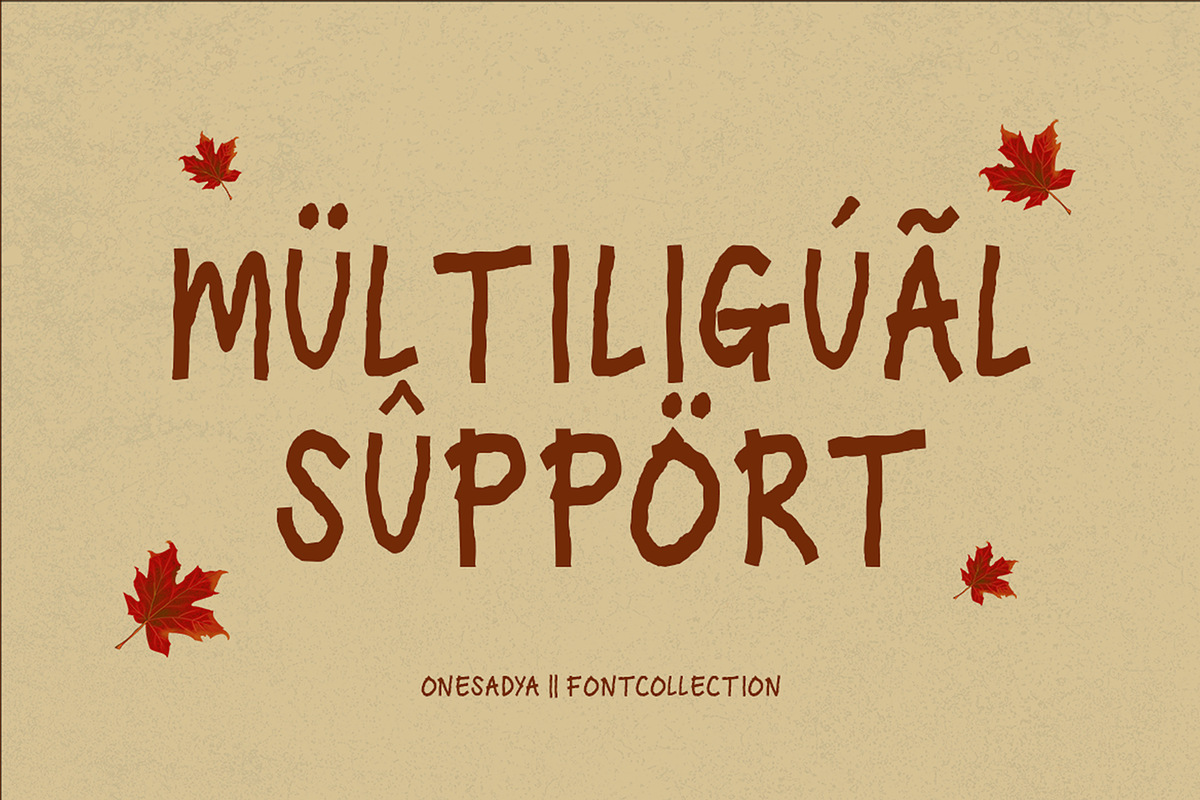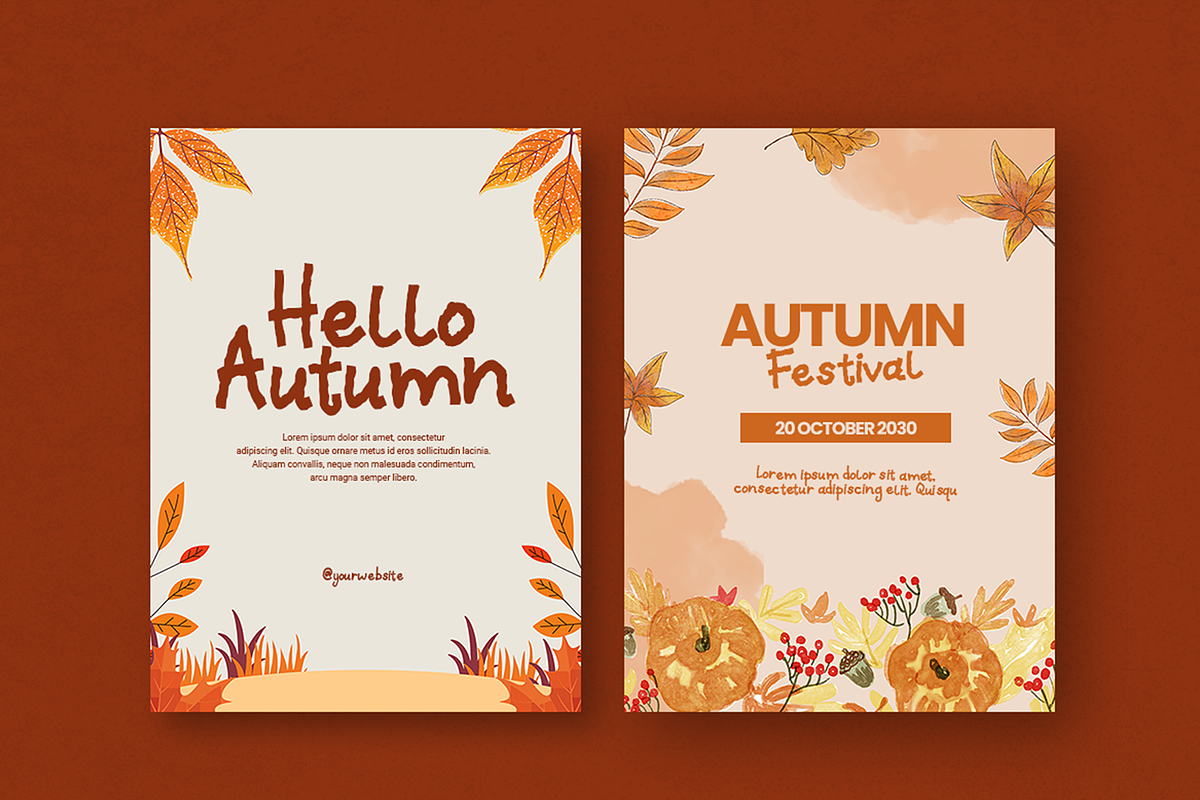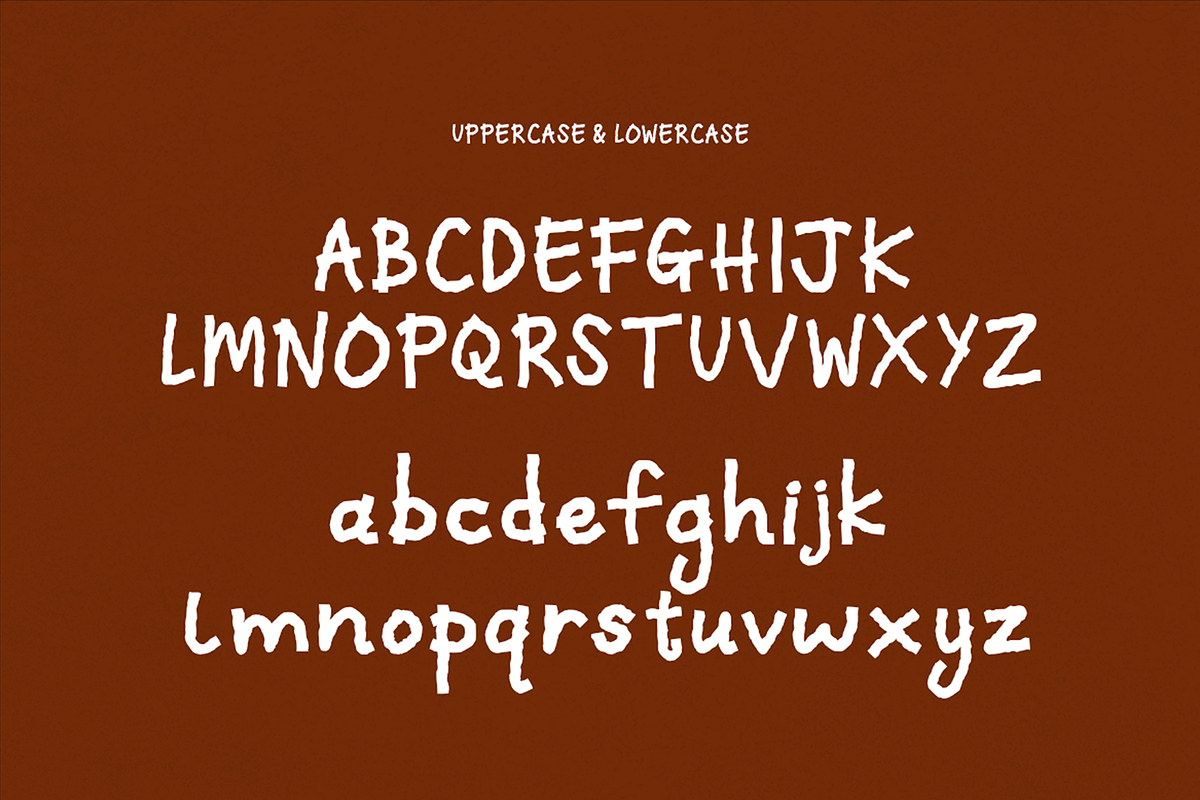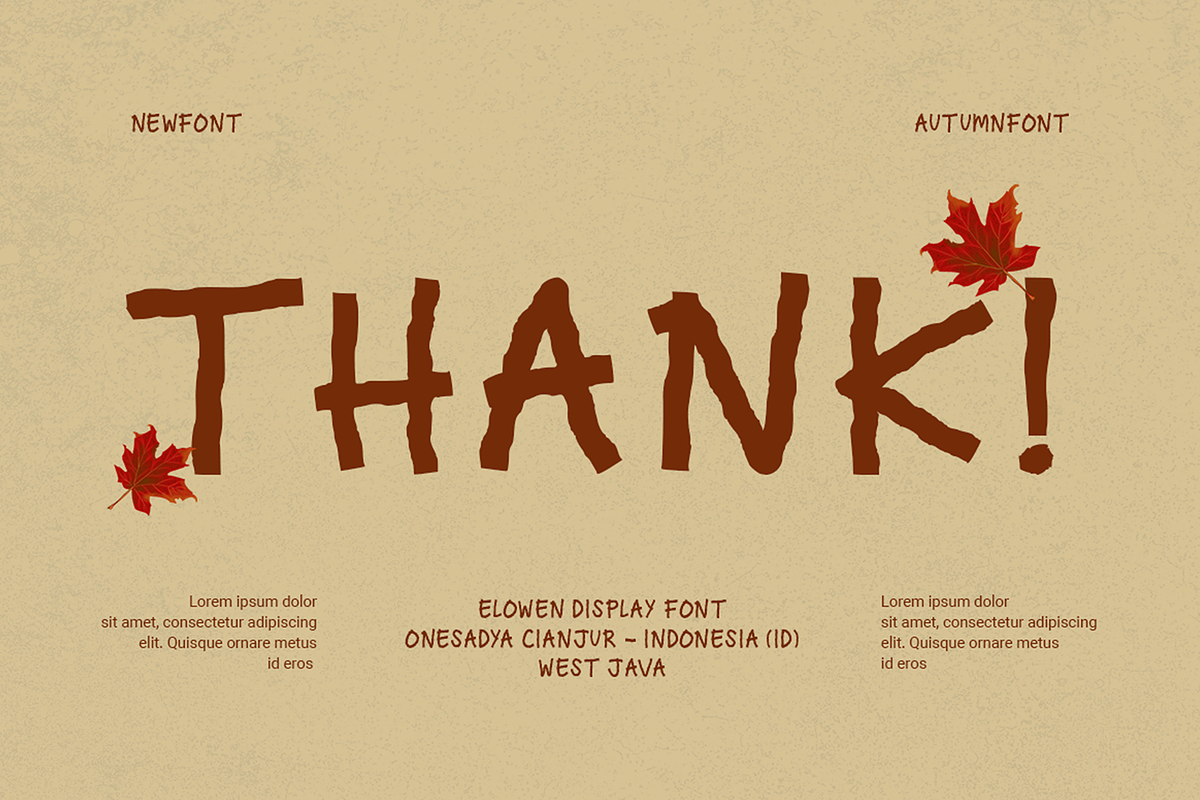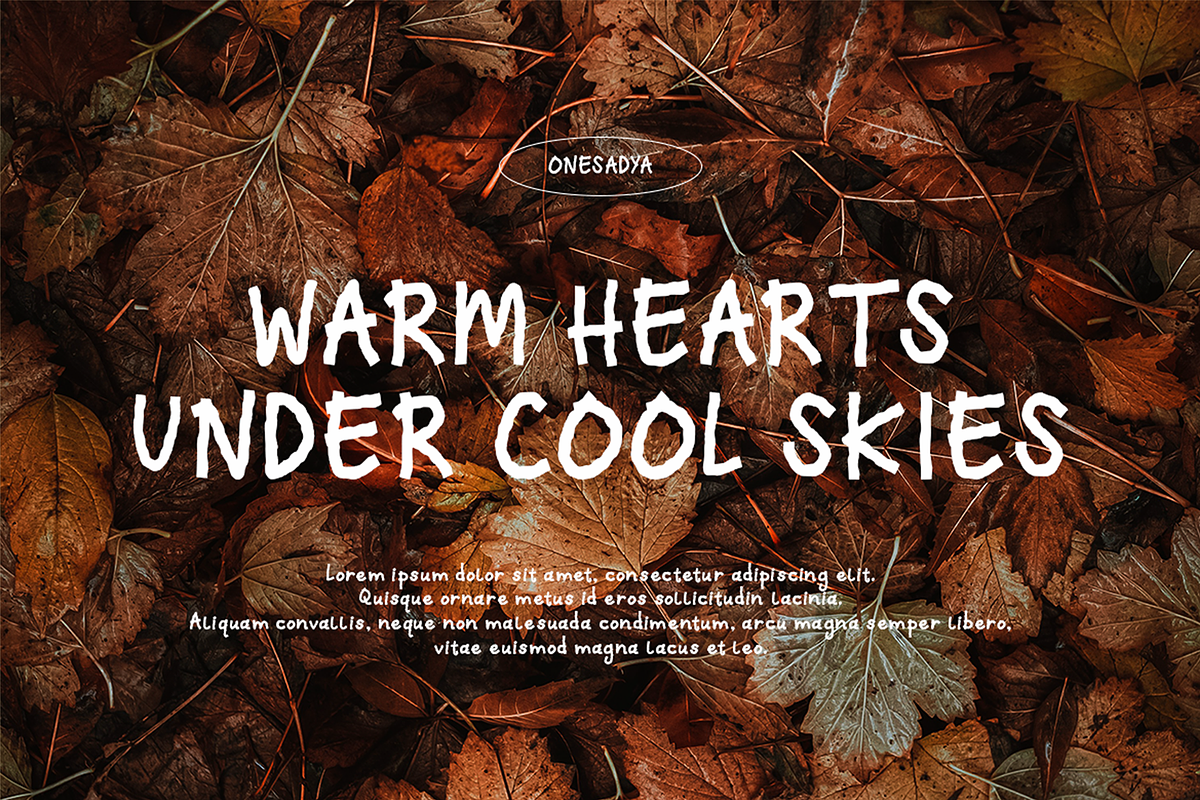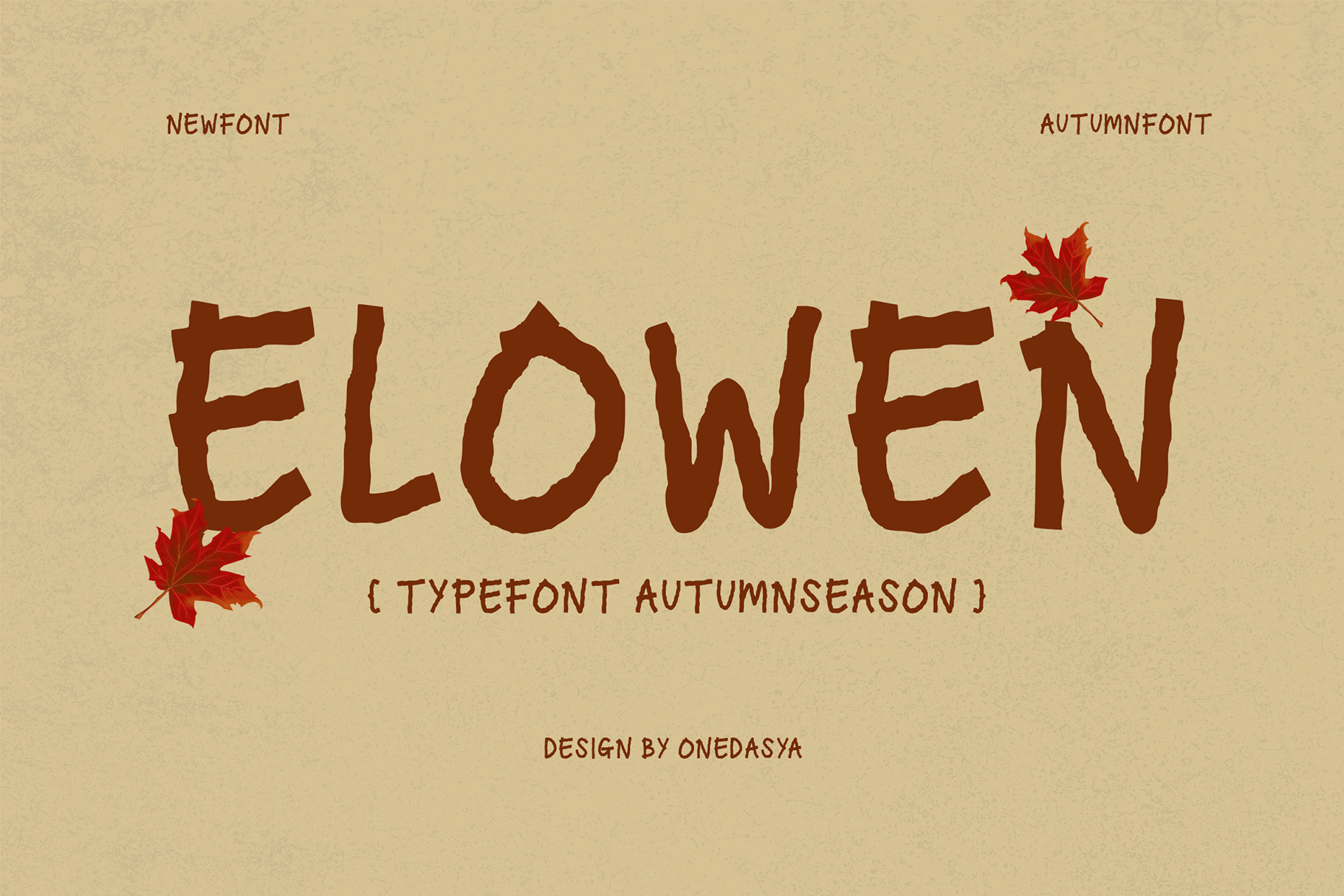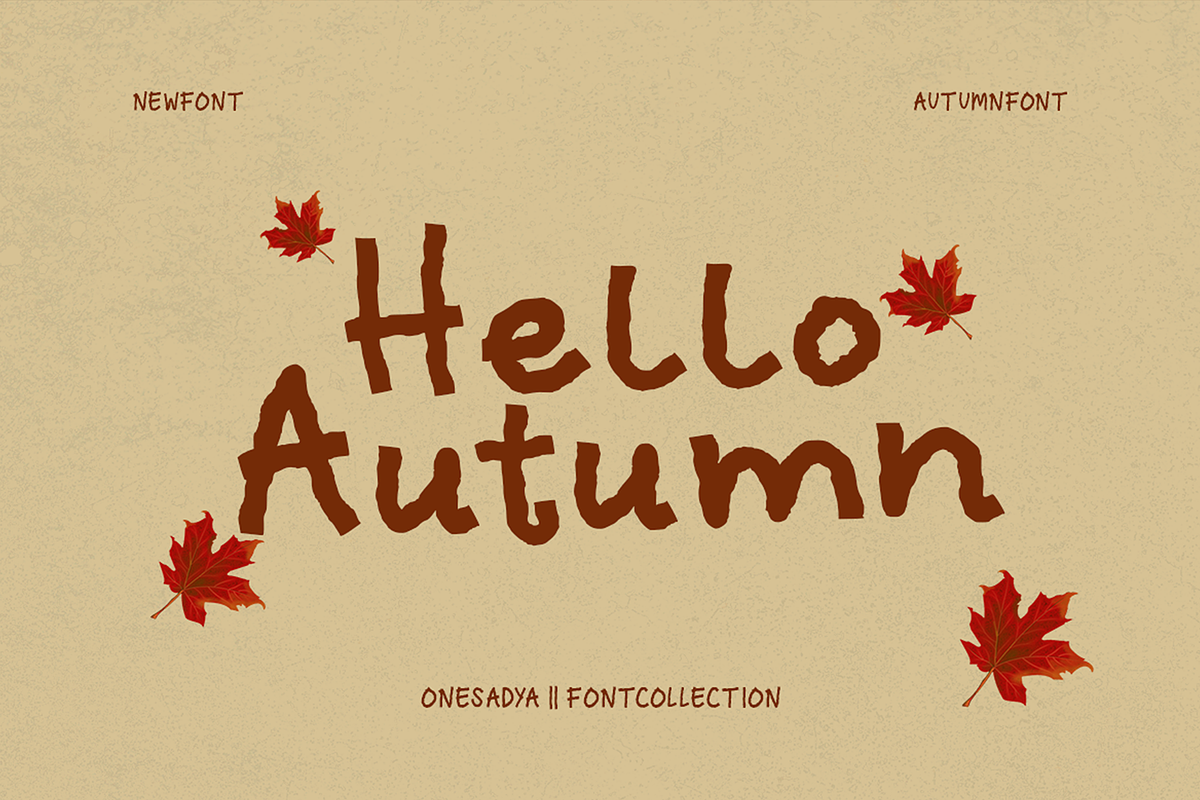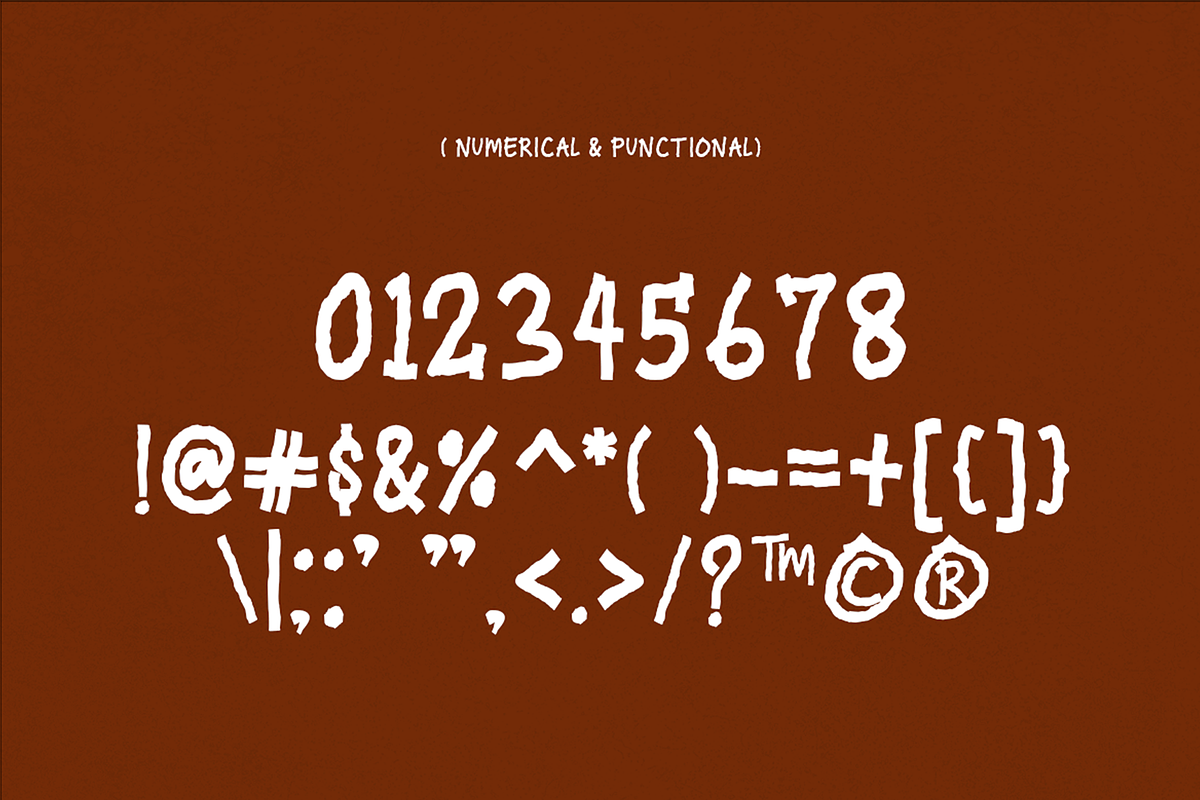
Eloween – Autumn Display Font
Eloween – Autumn Handcrafted Display Font
Eloween is a charming autumn-inspired display font that brings a warm, playful, and handcrafted feeling to your designs. Inspired by the cozy atmosphere of fall, changing leaves, rustic details, and seasonal creativity, Eloween features expressive letterforms with a natural hand-drawn character.
Its unique and friendly style makes it perfect for creating eye-catching designs while adding a cozy autumn touch. Eloween works beautifully for autumn branding, seasonal posters, greeting cards, invitations, packaging, quotes, social media designs, labels, stickers, apparel, and creative merchandise.
Whether you're designing a cozy fall collection, autumn-themed artwork, or a playful seasonal brand, Eloween adds personality and warmth to every word.
Autumn & Fall Branding
Seasonal Posters
Greeting Cards & Invitations
Packaging & Product Labels
Quotes & Typography Designs
Stickers & Stationery
Apparel & Merchandise
Café & Bakery Branding
Creative Logo & Display Designs
Eloween is made to bring the warm, playful, and cozy spirit of autumn into your creative projects.